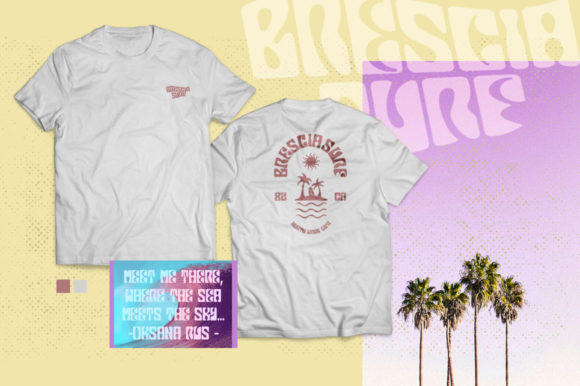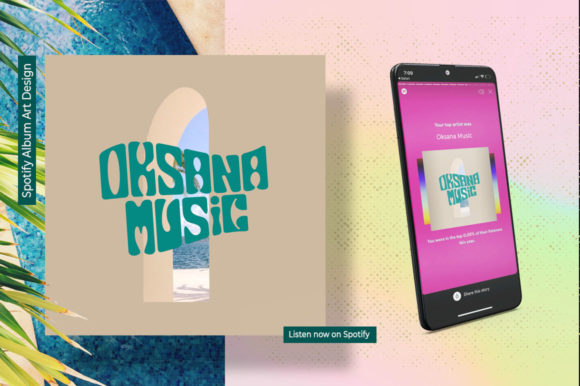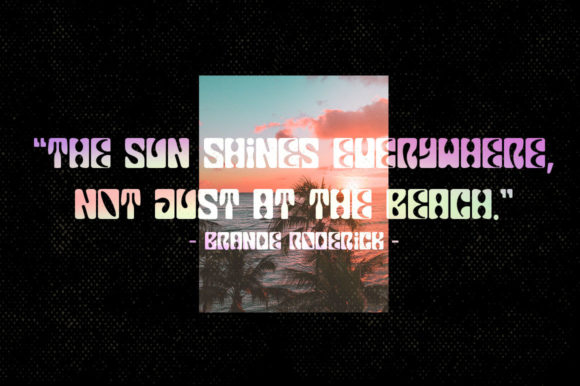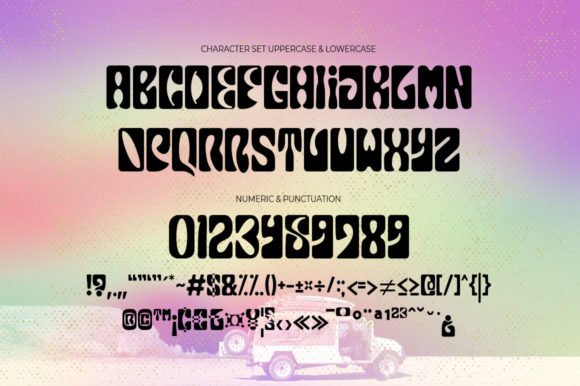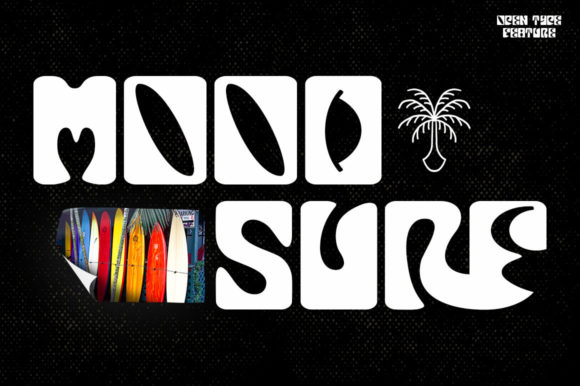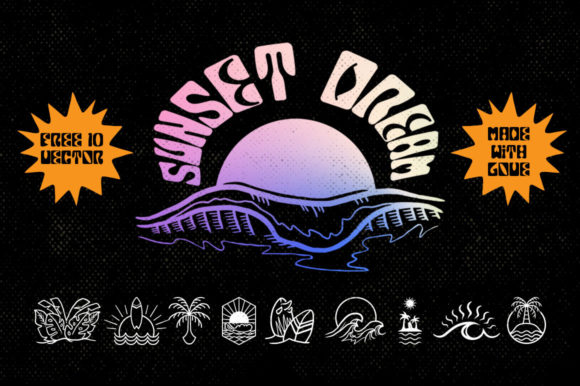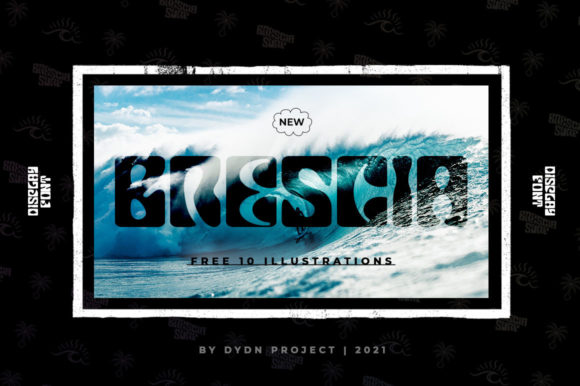
Brescia Font: Elevate Your Designs with a Whimsical and Unique Touch
In the world of typography, fonts play a crucial role in conveying the tone and personality of a design. Whether you’re a graphic designer, a crafty DIY enthusiast, or a digital artist, finding the right font can make all the difference in creating a visually stunning and effective design. If you’re on the hunt for a font that adds a distinct touch to your creations, look no further than Brescia Font. This whimsical, way, and uniquely designed display font is sure to elevate your designs and set them apart from the rest.
What is Brescia Font?
Brescia Font is a display font that boasts a one-of-a-kind design, making it perfect for designers and crafters looking to add a touch of personality to their work. Its whimsical and way design elements give it a playful and carefree feel, while its uniqueness ensures that your designs will stand out from the crowd. Whether you’re working on a logo, a poster, a website, or any other design project, Brescia Font is an excellent choice.
Key Features of Brescia Font
So, what makes Brescia Font so special? Here are some of its key features:
- Whimsical Design: Brescia Font’s whimsical design elements give it a playful and carefree feel, making it perfect for designs that require a lighthearted touch.
- Unique Style: This font’s unique style ensures that your designs will stand out from the rest and grab attention.
- Display Font: Brescia Font is a display font, making it perfect for headlines, titles, and other design elements that require a bold and eye-catching font.
- Versatility: This font is versatile and can be used for a wide range of design projects, from logos and posters to websites and social media graphics.
Who Can Benefit from Brescia Font?
Brescia Font is an excellent choice for a variety of designers and crafters, including:
- Graphic Designers: Graphic designers can use Brescia Font to add a unique touch to their designs, from logos and posters to brochures and business cards.
- Digital Artists: Digital artists can use Brescia Font to add a whimsical and playful touch to their artwork, from illustrations and graphics to animations and videos.
- Crafty DIY Enthusiasts: Crafty DIY enthusiasts can use Brescia Font to add a personal touch to their DIY projects, from handmade cards and invitations to crafts and decorations.
- Web Designers: Web designers can use Brescia Font to create visually stunning and effective website designs that grab attention and leave a lasting impression.
Tips for Using Brescia Font
Here are some tips for using Brescia Font effectively in your designs:
- Use it as a Display Font: Brescia Font is a display font, so use it as such. Reserve it for headlines, titles, and other design elements that require a bold and eye-catching font.
- Pair it with Other Fonts: Brescia Font can be paired with other fonts to create a visually stunning and effective design. Experiment with different font combinations to find the one that works best for your project.
- Experiment with Colors: Brescia Font can be used with a variety of colors to create a unique and eye-catching design. Experiment with different colors and color combinations to find the one that works best for your project.
In conclusion, Brescia Font is a whimsical, way, and uniquely designed display font that is sure to elevate your designs and set them apart from the rest. Its key features, versatility, and ease of use make it an excellent choice for designers and crafters looking to add a distinct touch to their work. Whether you’re a graphic designer, a digital artist, or a crafty DIY enthusiast, Brescia Font is a great addition to your font collection.